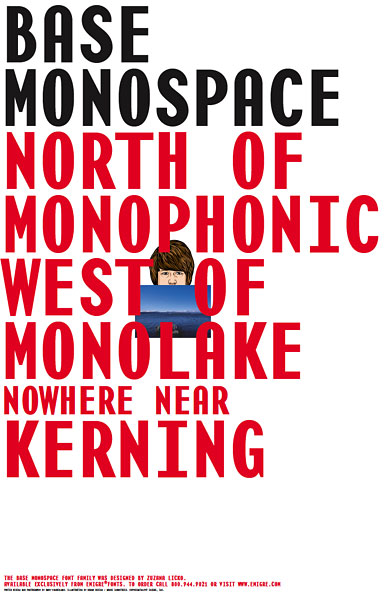
By Zuzana Licko
This text was first published in the Summer of 1997 on the reverse side of the promotional poster for Base Monospace which was bound into Emigre #43
Monospaced versus Proportional Spacing
In a monospaced typeface, such as Base Monospace, each character fits into the same character width.
In a proportional typeface, such as Filosofia, each character width is different to accommodate the particular width of each character.
Filling the Mono-Space
The first step in designing Base Monospace was choosing the model character width. To facilitate a harmonious relationship with the screen fonts, the goal was to select a character width that would have a simple ratio to its em-square. The obvious first choice was 100%, or 1:1 the simplest ratio of all, but this idea was discarded since this would have yielded a typeface too wide for practical purposes. Eventually, the 1:2 ratio (50%) was selected as the character width for Base Monospace Narrow, and the 3:5 ratio (60%) was chosen for Base Monospace Wide.
Since every character in a monospaced typeface must fit into the same space, character shapes become stretched and squeezed.
Some characters, such as the "c," "f," "i," and "l," were made wider than usual to fit into the model character width.
Other characters, such as the "d," "m," and "w," were made narrower than usual to fit into the model character width.
This stretching and squeezing of characters becomes particularly problematic in the heavier weights; there is usually not enough room to accommodate both the thickness of the stem weight, as well as the complexity of some characters such as the "m" and "w." The stem weights must therefore be adjusted, and although the stem weights of the "i" and "l" (left) are heavier than the "m" and "w" (right), the overall color density is the same when set in text (below).
One solution to accommodating a bold character is shifting the weight from one part of the letterform to another. These "A" and "W" variations show some of the options. Ultimately, the choice is determined by which is most harmonious within the overall typeface design.
Alternate Character Forms
In a monospaced typeface, the spacing can be improved if the characters fill out their spaces evenly. For example, the "A" with vertical sides (left) forms more evenly distributed white space in its character cell and will therefore have fewer spacing problems than the "A" with diagonal sides (right):
Similarly, the wider "r" (left) is preferable to the narrower "r" (right), although the aesthetic form of the narrower may be more pleasing outside of the monospaced context.
The wider "r" (top line) creates fewer spacing problems than the narrower "r" (bottom line) when set in text.
The spacing characteristics of the various forms have to be balanced with the recognition or legibility of the forms themselves. Therefore, although the "W" and "w" have similar spacing problems to those of the "A," the diagonal-sided "W" (left) was chosen over the straight-sided "W" (right) to improve letter shape recognition, since the straight-sided "w" could easily be confused with an "m" in text settings:
Sometimes the selection of one character variation over another is a choice between the importance of its aesthetic form versus its function within the rest of the typeface. Although the open "S" (right) may have been more appropriate from a formal standpoint, the enclosed "S" (left) was chosen; its vertically curved end strokes enclose the space more effectively and therefore more clearly define the interior versus exterior white space. This reduces spacing problems, as well as gives the appearance of a narrower form that fits more comfortably within the fixed character space:
Space Probe: Investigations into Monospace
By Zuzana Licko and Rudy VanderLans
Occasionally, we receive inquiries from type users asking us how many kerning pairs our fonts contain. It would seem that the customer wants to be dazzled with numbers. Like cylinders in a car engine or the price earnings ratio of a stock, the higher the number of kerning pairs, the more impressed the customer will be. What they fail to understand is that the art of kerning a typeface is as subjective a discipline as is the drawing of the letters themselves. The fact that a particular typeface has thousands of kerning pairs is relative, since some typefaces require more kerning pairs than others by virtue of their design characteristics. In addition, a poorly spaced typeface will indeed require more kerning pairs to correct its spacing errors than a typeface that was optimally spaced to begin with. Therefore, the need for a large number of kerning pairs could actually be indicative of a poorly produced font. High kerning pair counts are also misleading because the font can be poorly kerned or kerned in a way preferred by the font designer, not the end user. Finally, the user should keep in mind that the kerning pairs provided in a font are most suitable when the font is set with regular tracking; when tracking is changed, particularly when it is tightened, this usually requires modifications to the kerning pairs.
At the opposite extreme of kerned typefaces lie monospaced fonts, many of which manage to be highly legible despite the fact that they contain not a single kerning pair. Monospaced fonts assign each character an identical width, whereas proportional typefaces use varying character widths, which position individual letters on set widths that vary depending on the width of each character.(1) When combined to make words and sentences, the individual letters appear to be evenly spaced and kerning is used to further optimize spacing between difficult combinations. Monospaced typefaces were originally designed to deal with the mechanical restrictions of composing systems such as the typewriter, which forced each character to have the same single set width. Thus, the narrow "i" is set on the same base as the wide "w," resulting in a somewhat irregular looking letter spacing. Base Monospace, as its name implies, belongs to this category of typefaces characterized by letter designs that each occupy a single set width, like the infamous typewriter font Courier (designed in 1956 by Howard Kettler), and the many other monospaced fonts that inspired its design.
The difficulty with monospaced fonts is that they do not easily conform to traditional notions of good typography. Traditionally, when setting a text, the object is to maximize spacing and kerning to a point where a text appears an even "color" when viewed at reading distance. However, while this might be desirable visually and esthetically speaking, it does not automatically render the text more legible. In fact, perhaps, even the opposite is true. When you have perfectly rendered type printed on the smoothest of papers and impeccably kerned, a text can easily appear too stark and machine-made looking and might, in effect, overshoot the mark of legibility.
Monospaced typefaces, on the other hand, live safely on the "vernacular" side of legibility. When set in text, they do not generate a silky smooth image on the page. The "i" "l" and "j" usually float in their spaces, while the "m" and "w" are squeezed in, creating a somewhat jarring text image. Still, monospaced typefaces might have a leg up in the legibility department. Since the typewriter was an affordable and easy to use typesetting tool, it rapidly became the standard for academic, business and legal writing, and for formal and informal correspondence. Despite its esthetic handicaps, it was able to establish a look and feel that became accepted as a highly functional means of communication all over the world. If it is true that people read best what they read most, then monospaced type must contain plenty of features worth considering when exploring legibility.
When effective communication is the ultimate goal, it makes sense to consider the tried and true and to sometimes forego imposing preferences that favor esthetics. Base Monospace is designed with this is in mind. Its slightly irregular spacing generates an "informal" look reminiscent of typewriter text, but also of the more intentionally informal look of text often seen in today's more progressive and experimental publications. No doubt many designers will argue against this idea, dismissing Base Monospace simply as a typeface with inferior spacing and therefore difficult to read. After all, we read words, not letters, they'll argue, and "proper" spacing increases the cognition of word shapes. Many words, though, have the same shape, so we cannot ignore the issue of creating individual letter shapes that are easily distinguishable from each other and spacing that emphasizes this. Perhaps the squeezed look of the "w" in Base Monospace makes it look more like a "w," while the open space around the "i" amplifies its "i"-ness.
It is always the challenge of the type designer to create characters that together form a coherently designed alphabet, yet are different enough from each other to distinguish themselves. These are extremely challenging parameters that allow for limitless experimentation. Stanley Morison in his First Principles of Typography wrote: "It is always desirable that experiments be made, and it is a pity that such 'laboratory' pieces are so limited in number and in courage. Typography today does not so much need Inspiration or Revival as Investigation."(1) Base Monospace is one such investigation. To complete the experiment, we count on your reaction.
1. Stanley Morison, First Principles of Typography, New York: The MacMillan Company, 1936.